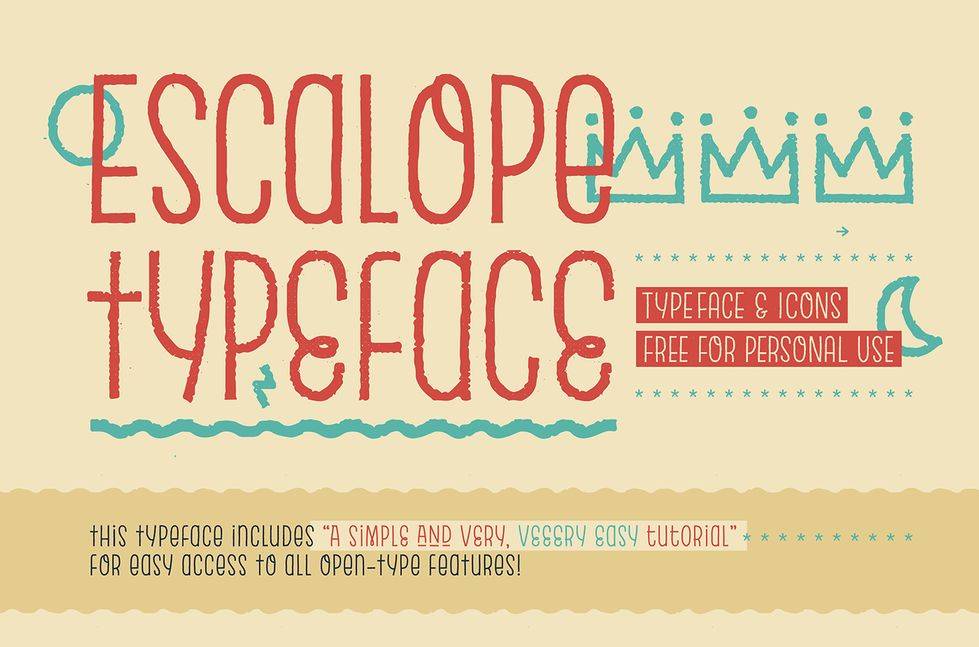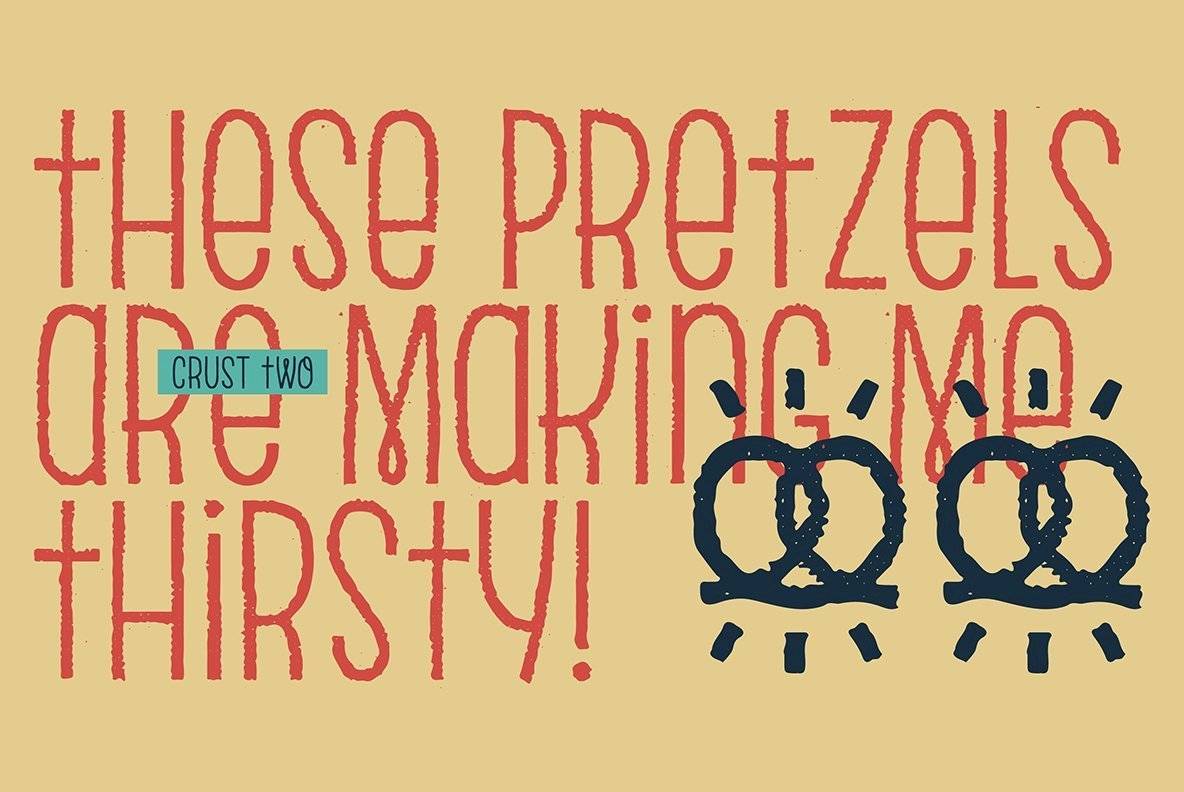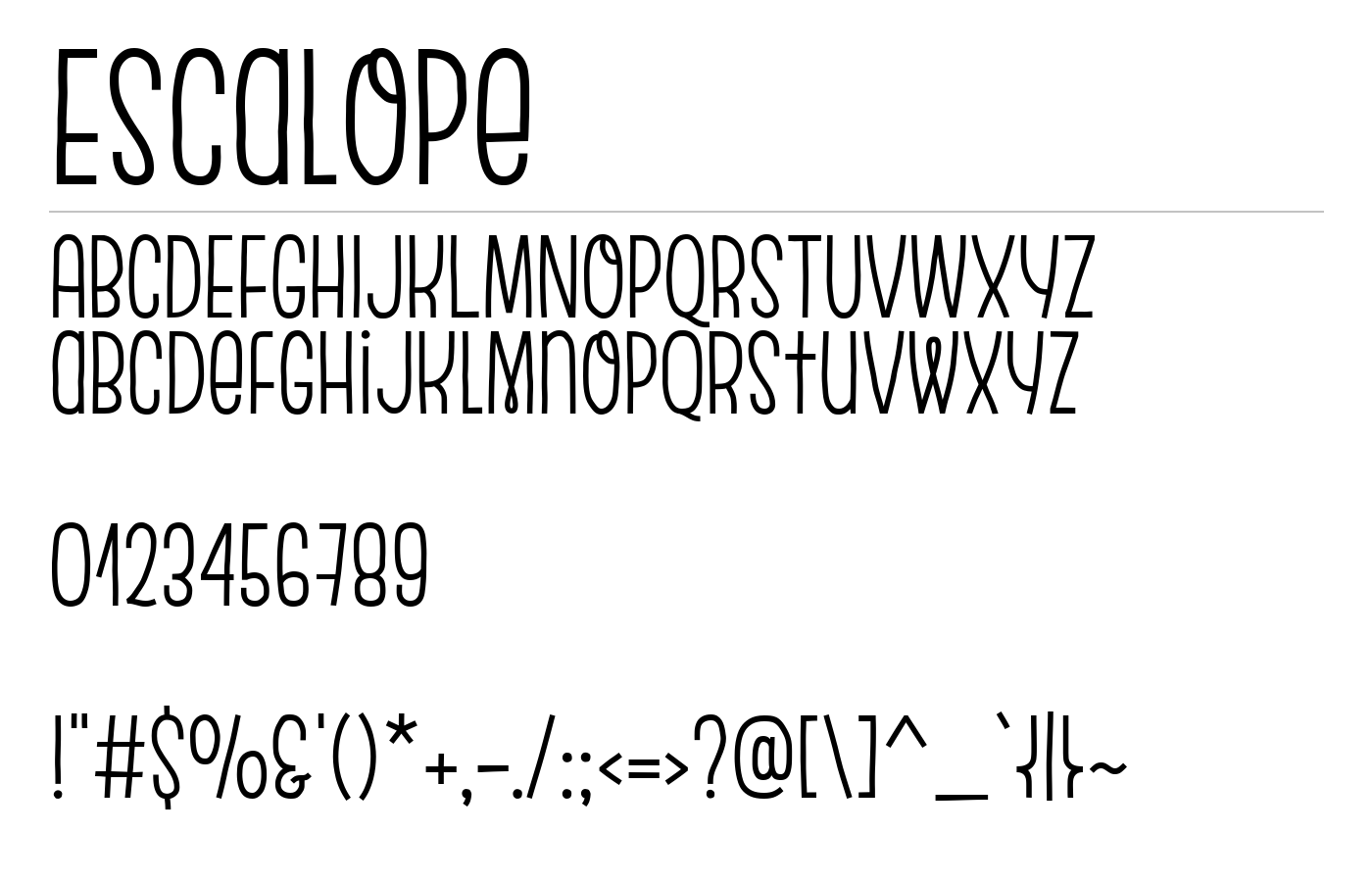
Escalope is a tall, narrow sans serif typeface with a playful and quirky personality, featuring slender, slightly irregular letterforms that lend it a hand-drawn feel. Its condensed width and high x-height make it ideal for eye-catching headlines or creative branding where a unique, whimsical touch is desired. This font works well in artistic or informal contexts, adding character and a distinctive style without sacrificing legibility.